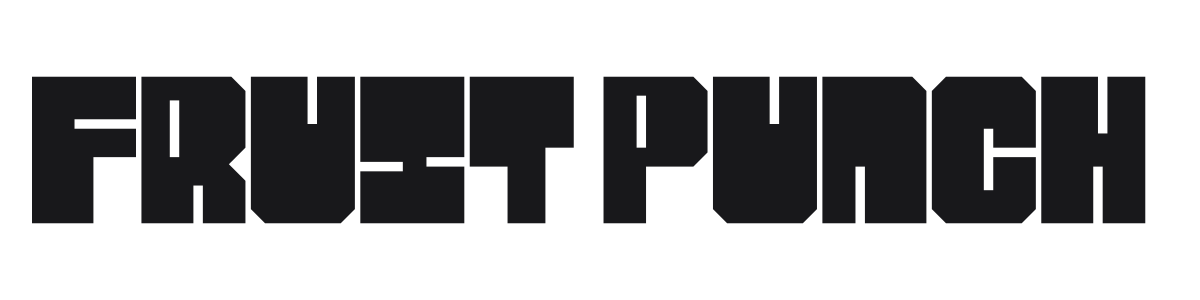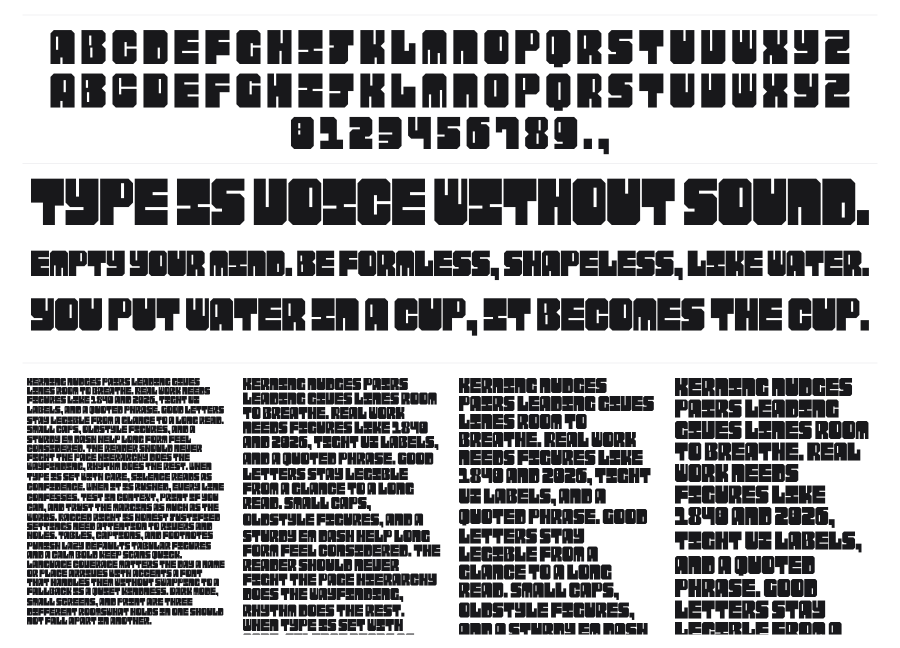
Fruit Punch
by Christopher Covington
Fruit Punch is an ultra-bold comic display font built from chunky rectangular modules with sharp notched cuts that give every character a jagged, splintered energy. The extreme weight and condensed proportions make it hit hard at headline sizes. Created by Better Handwriting on FontStruct, with lowercase characters serving as alternates to the uppercase.